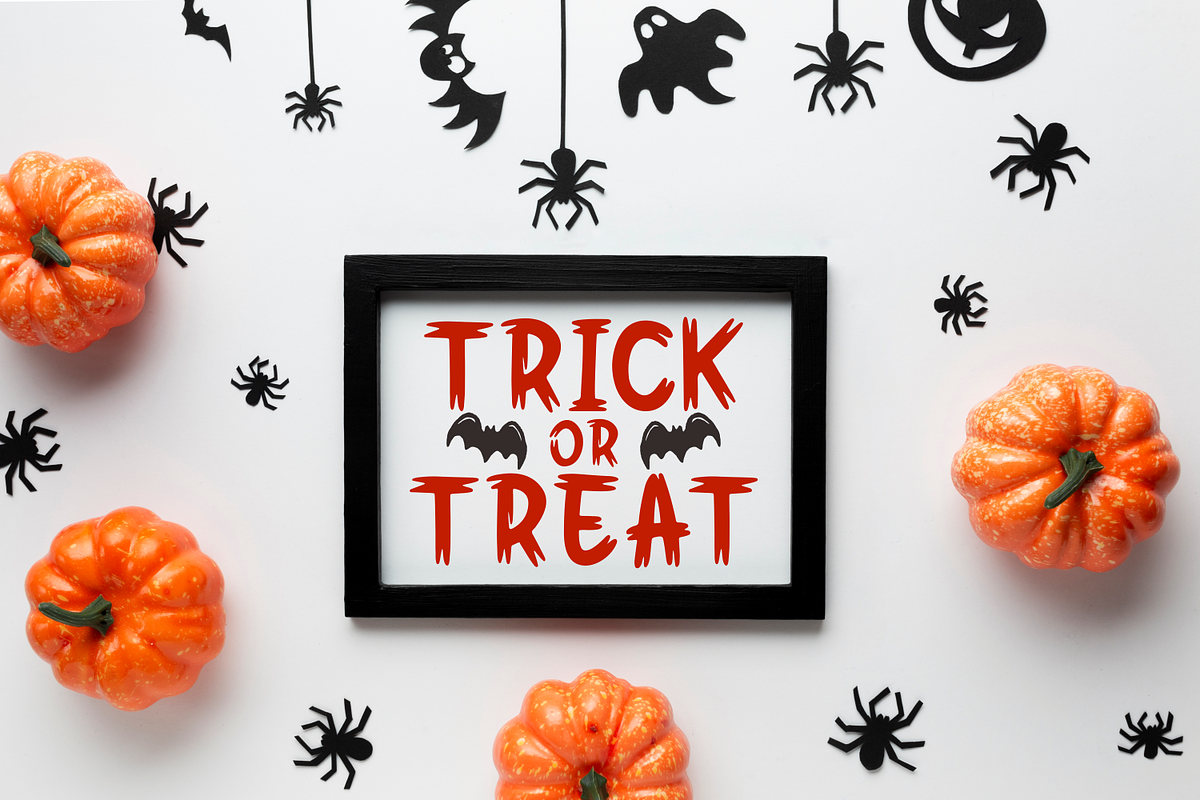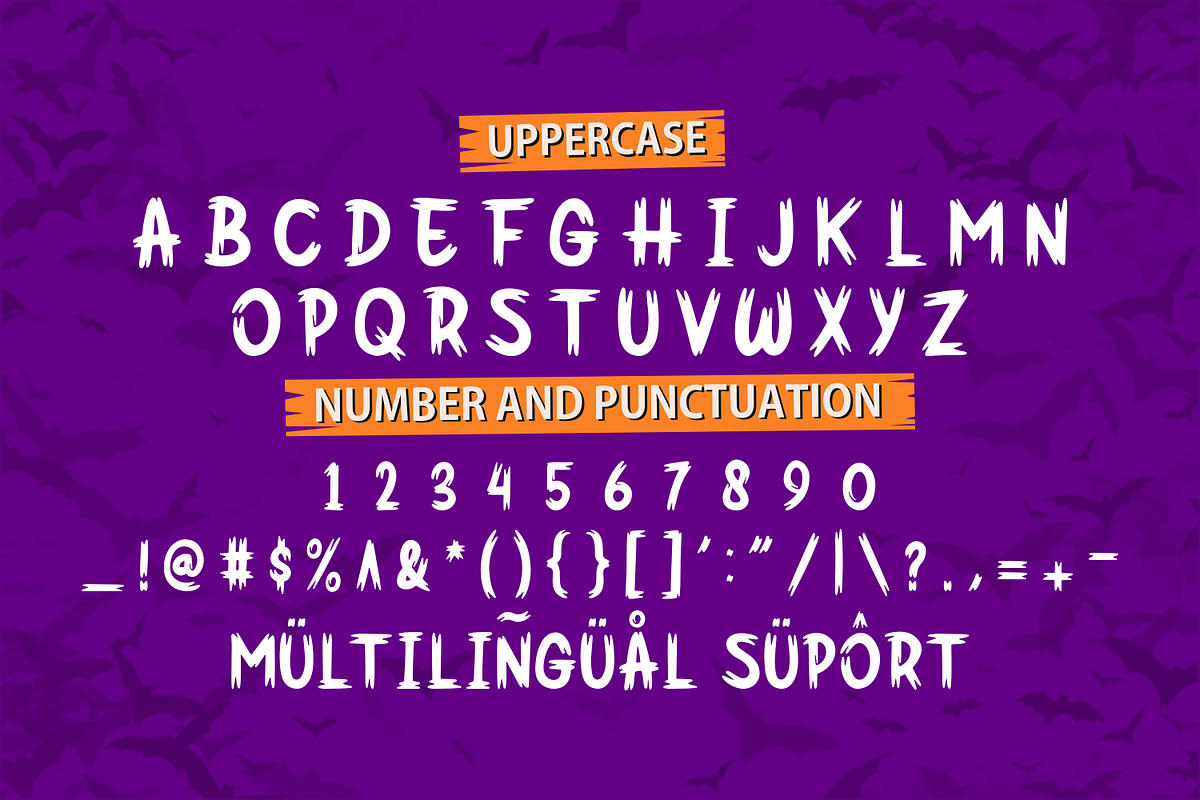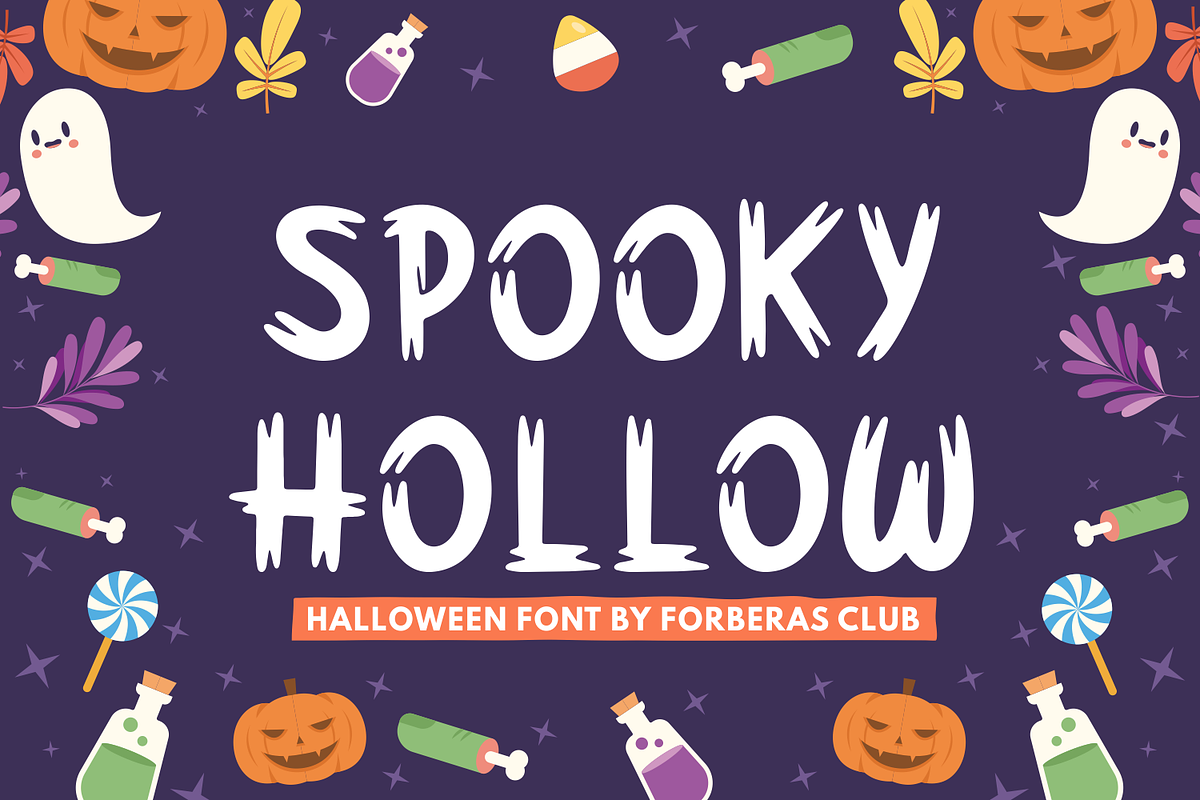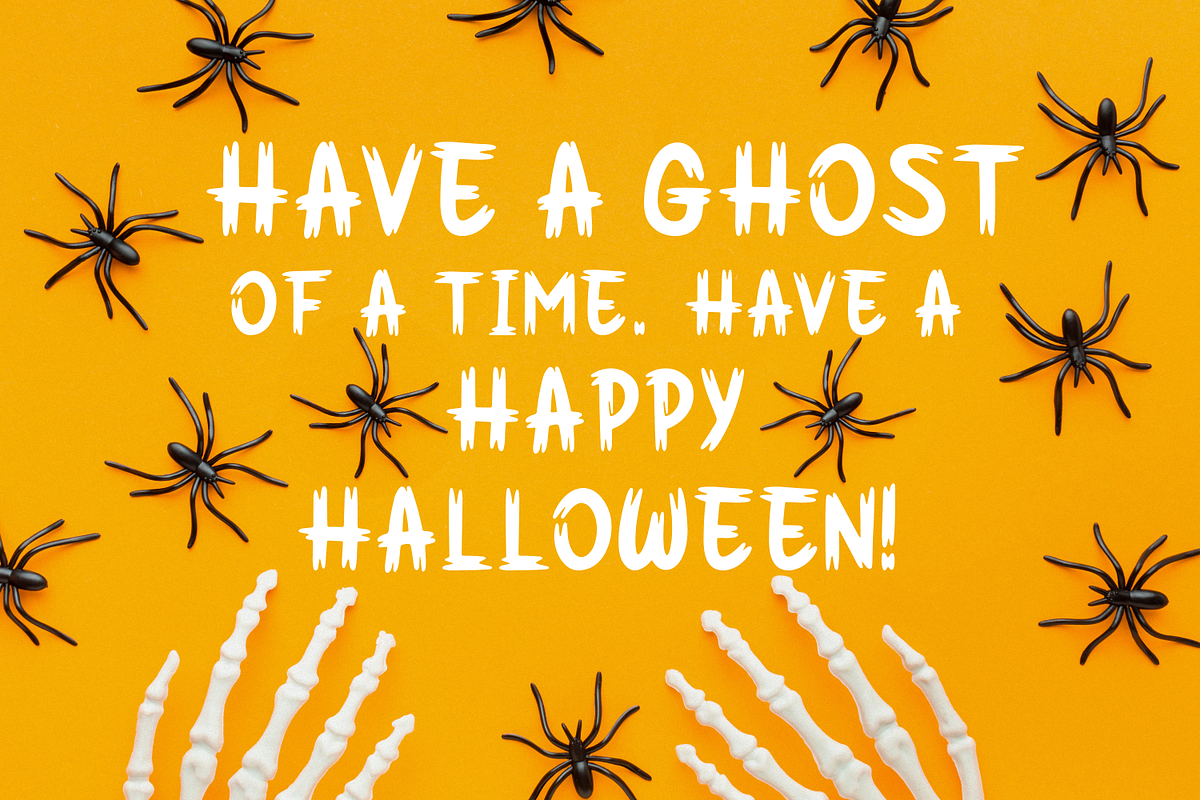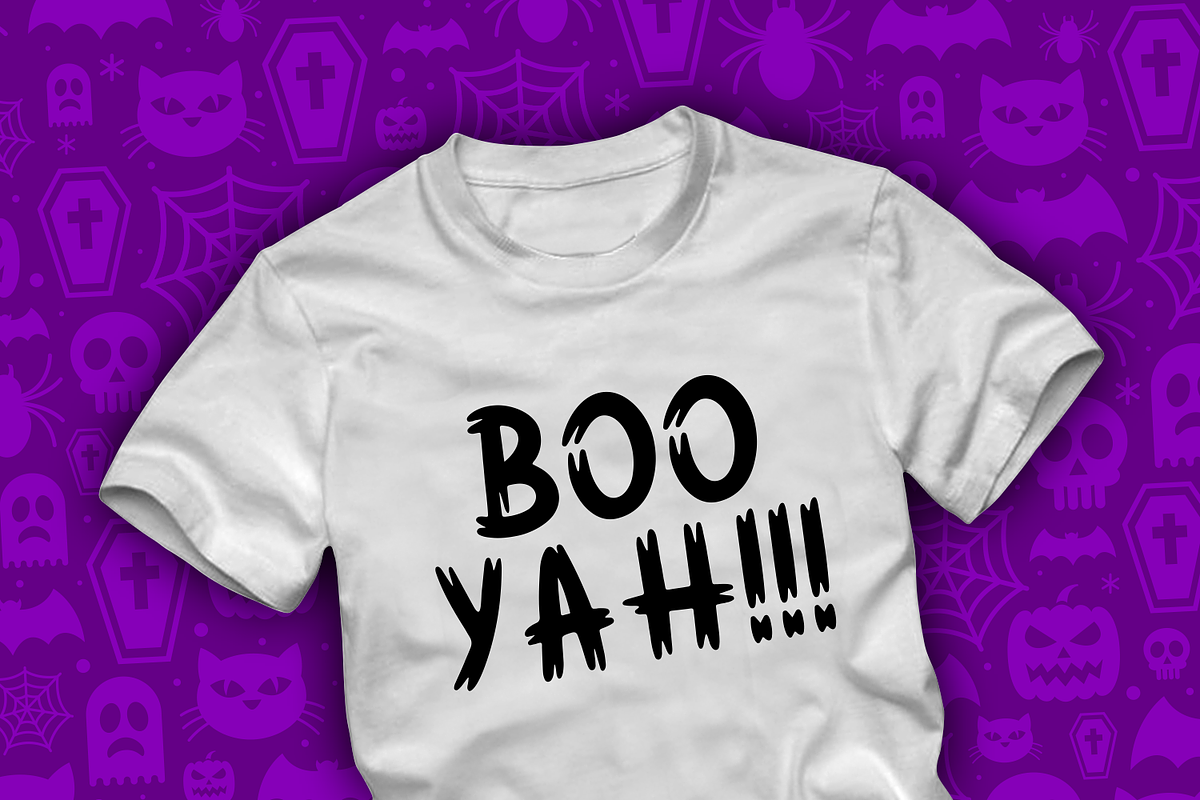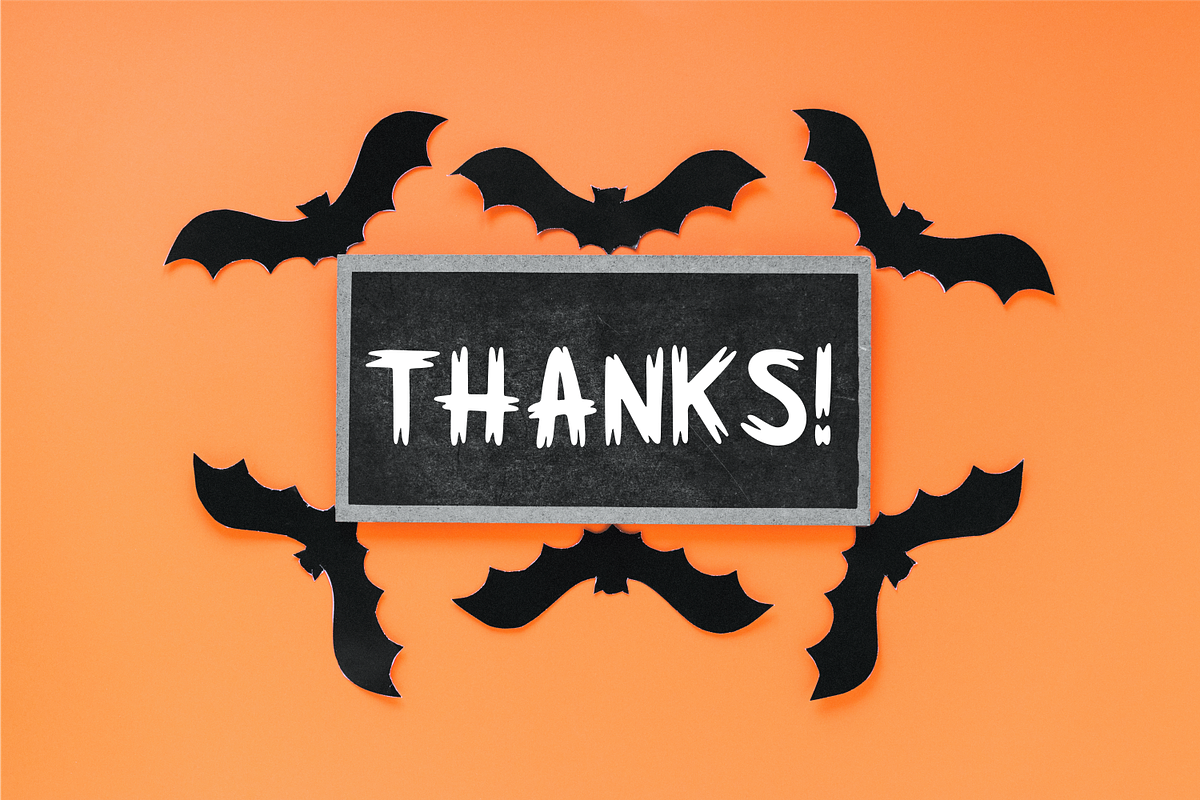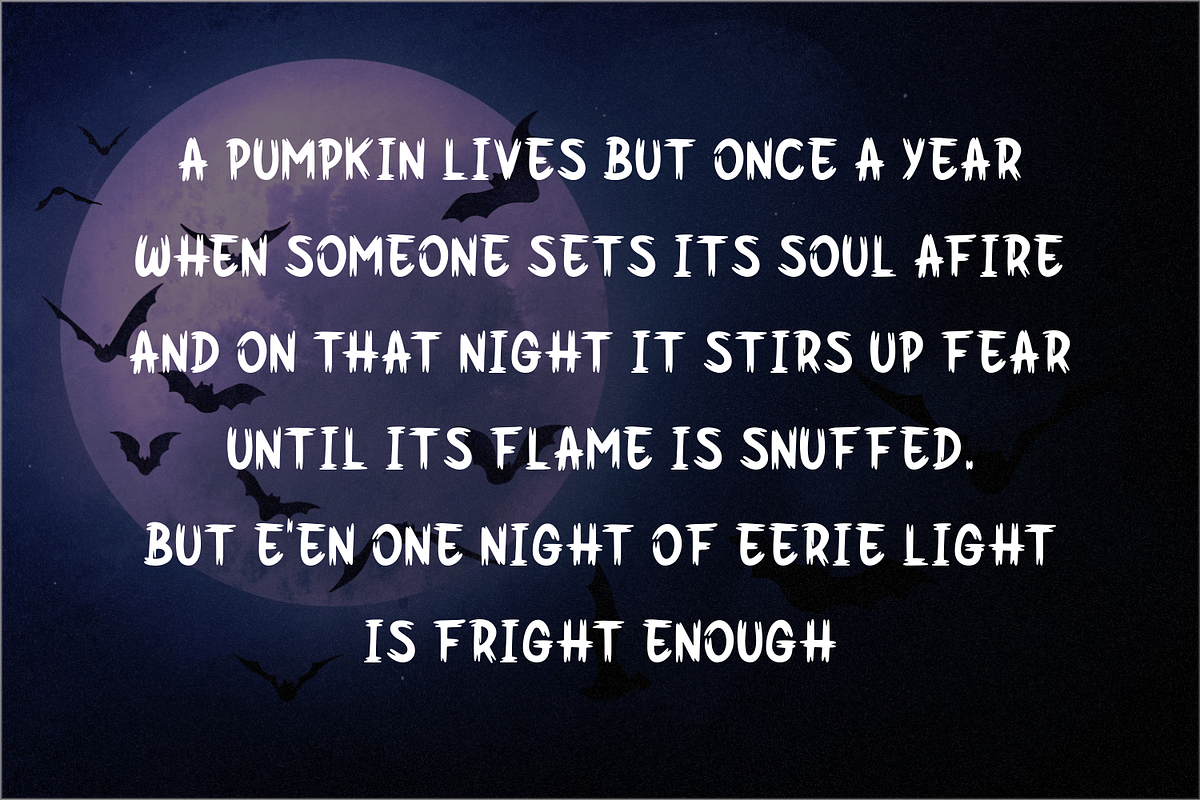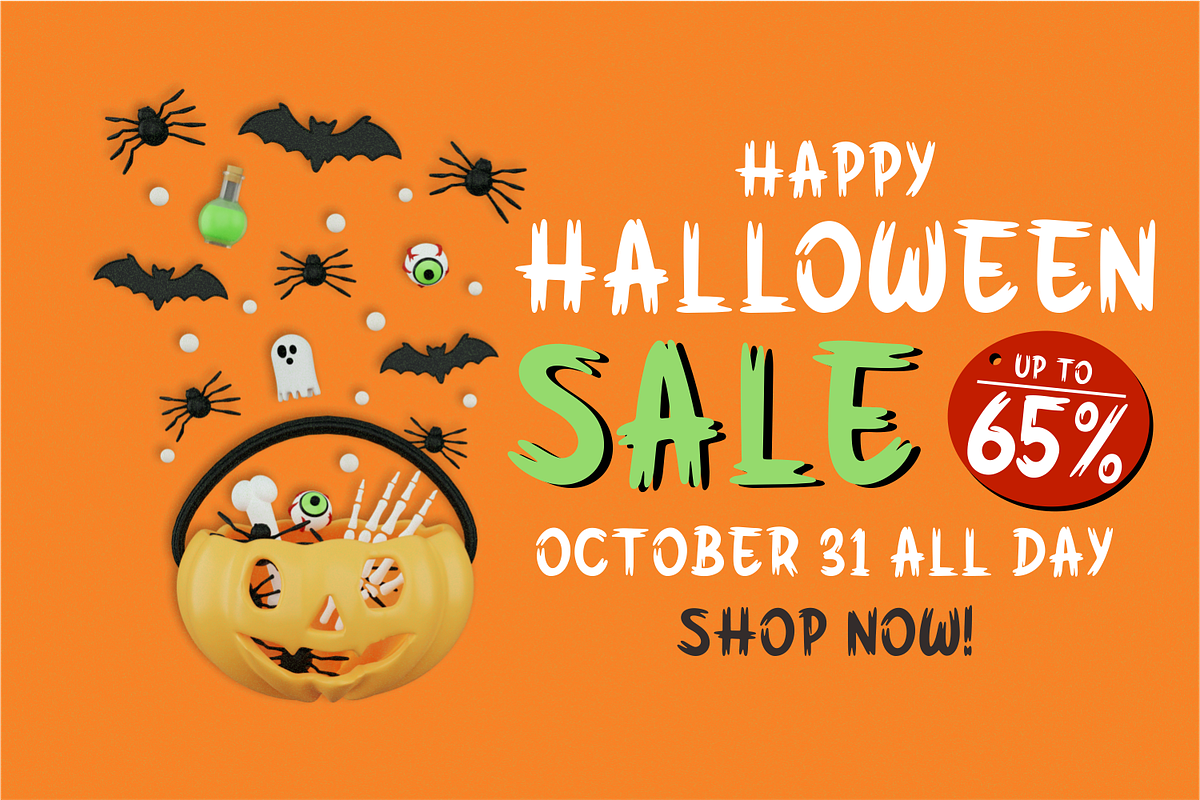
Spooky Hollow A Halloween Madness
Introducing Spooky Hollow by Forberas Club
Spooky Hollow is a Halloween-themed display font that will make your designs look classic, mysterious, horror, and spooky. It is a great font for events, Halloween, fashion, apparel projects, signature, album covers, logos, branding, magazines, social media posts, advertisements, but it also works great for other projects. Add it to your fonts’ library, and it will enhance your creativity!
Spook Hollow is best for:
- logos, branding, & Signatures.
- Flyers, Album cover, Magazine, & Advertisements.
- Website design , design blogs, & fashion.
- Quote graphics for social media.
- and also it works great for other projects.